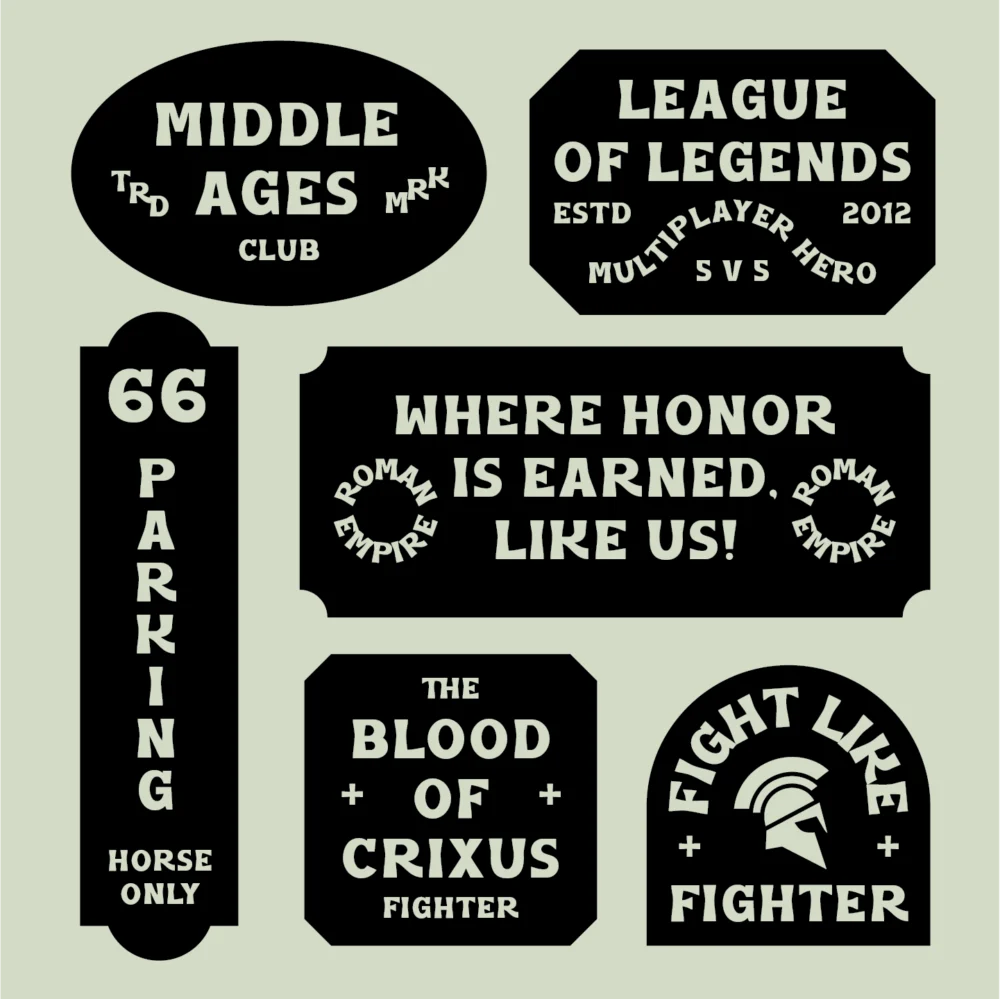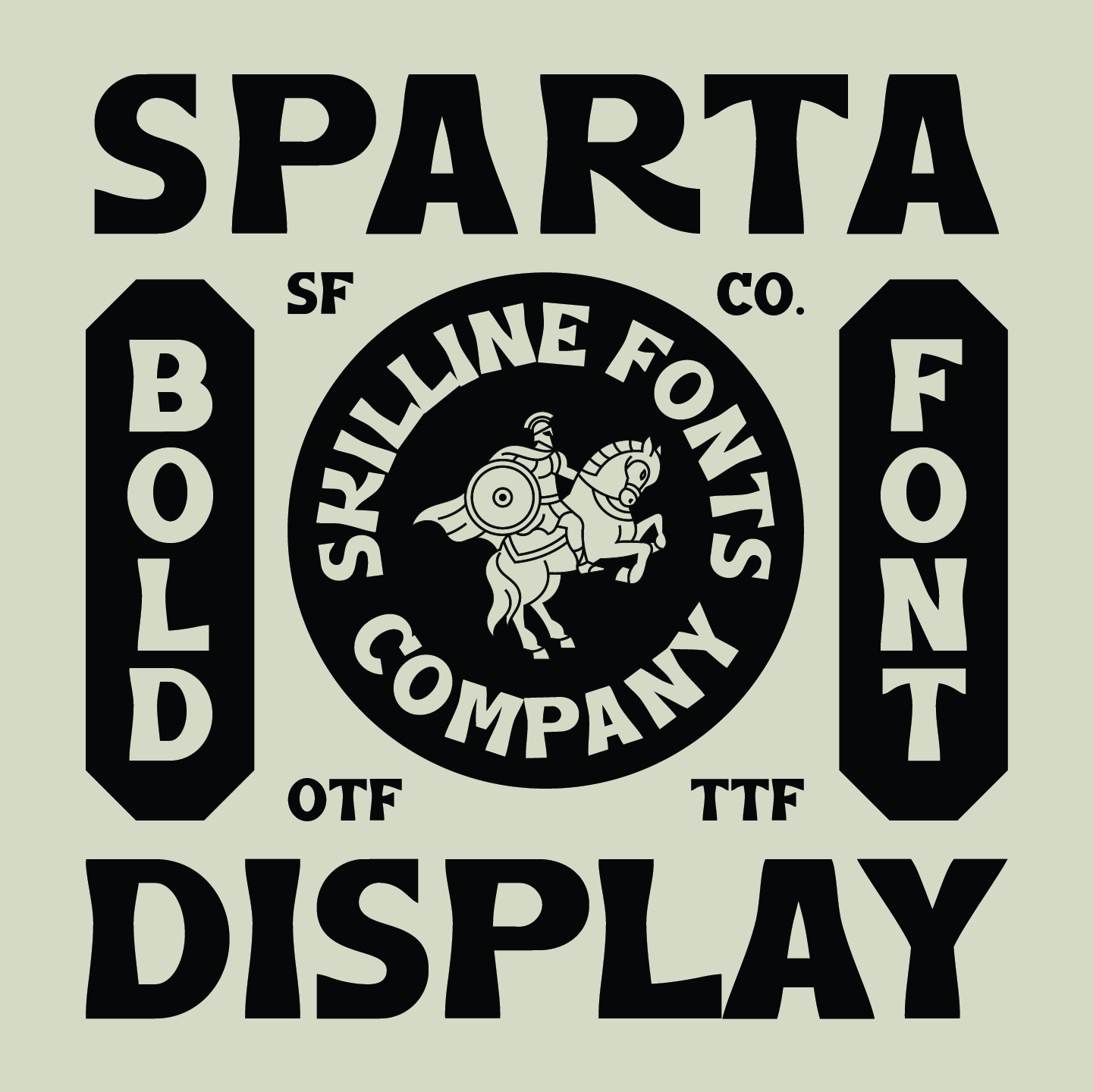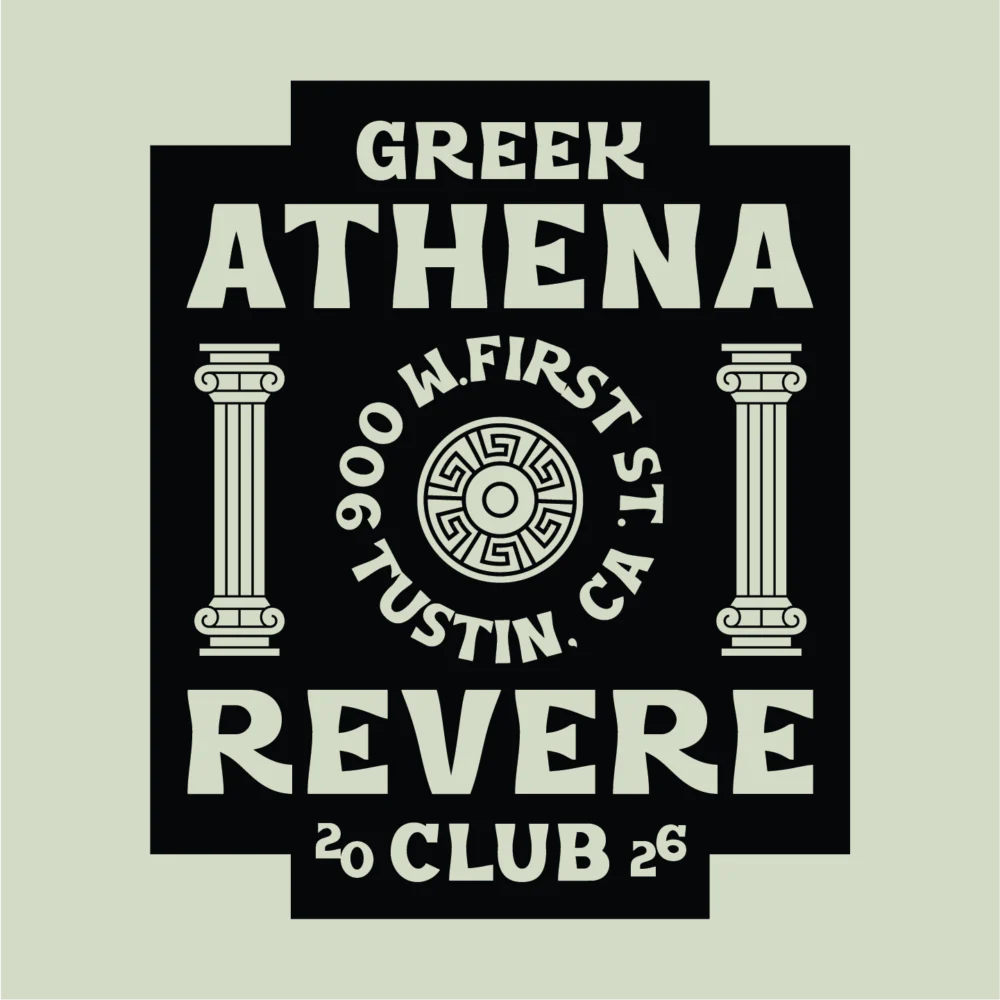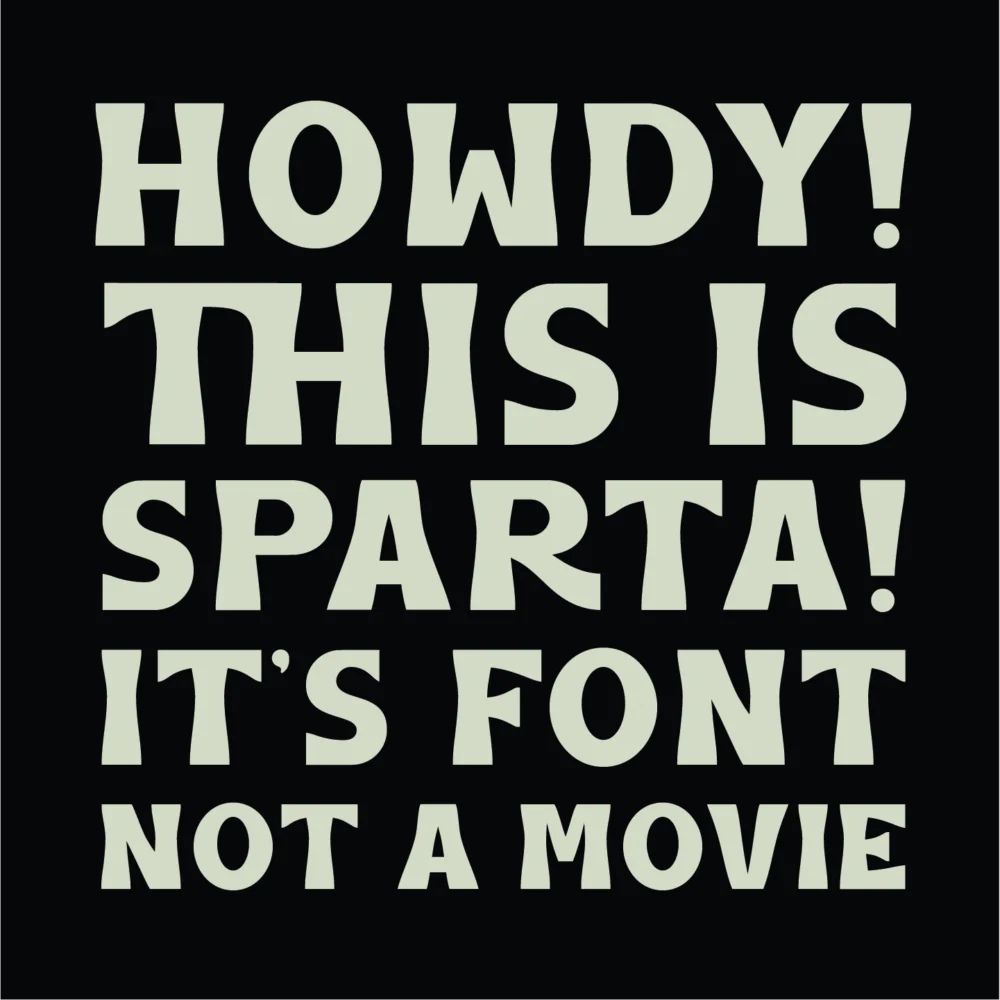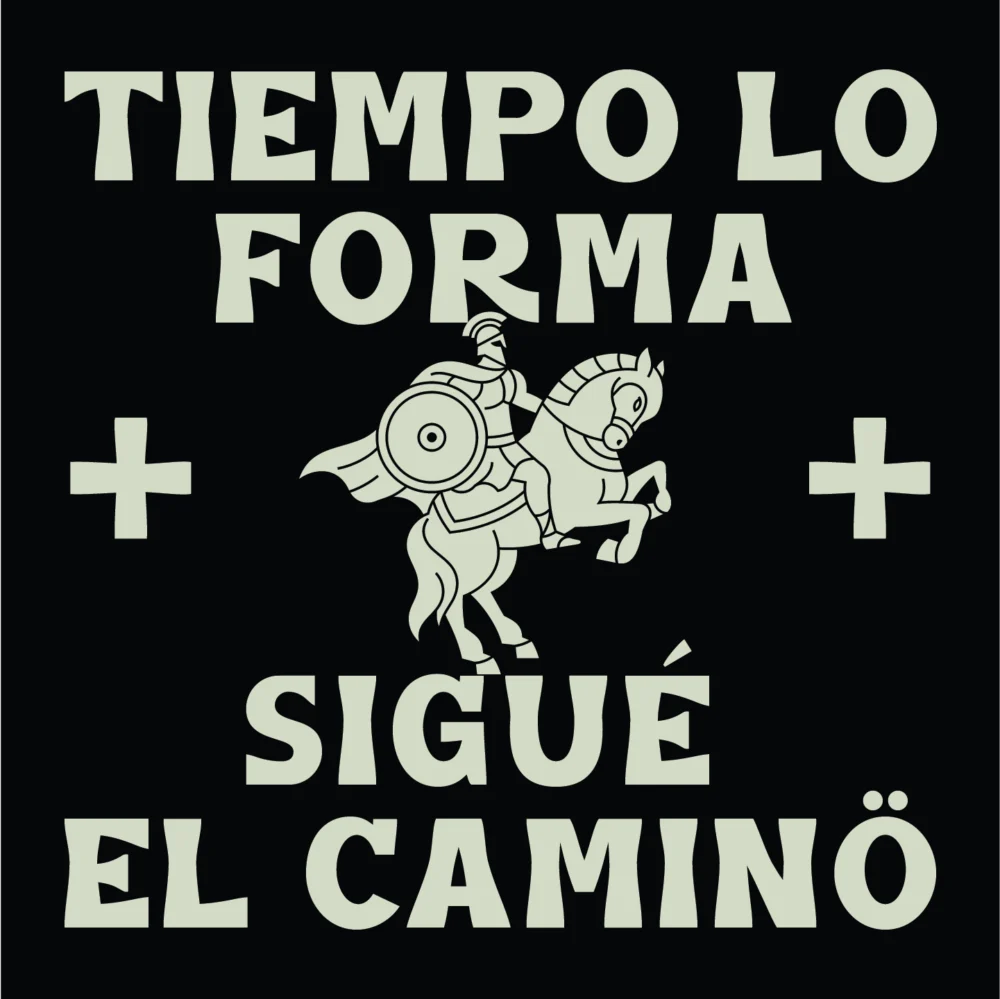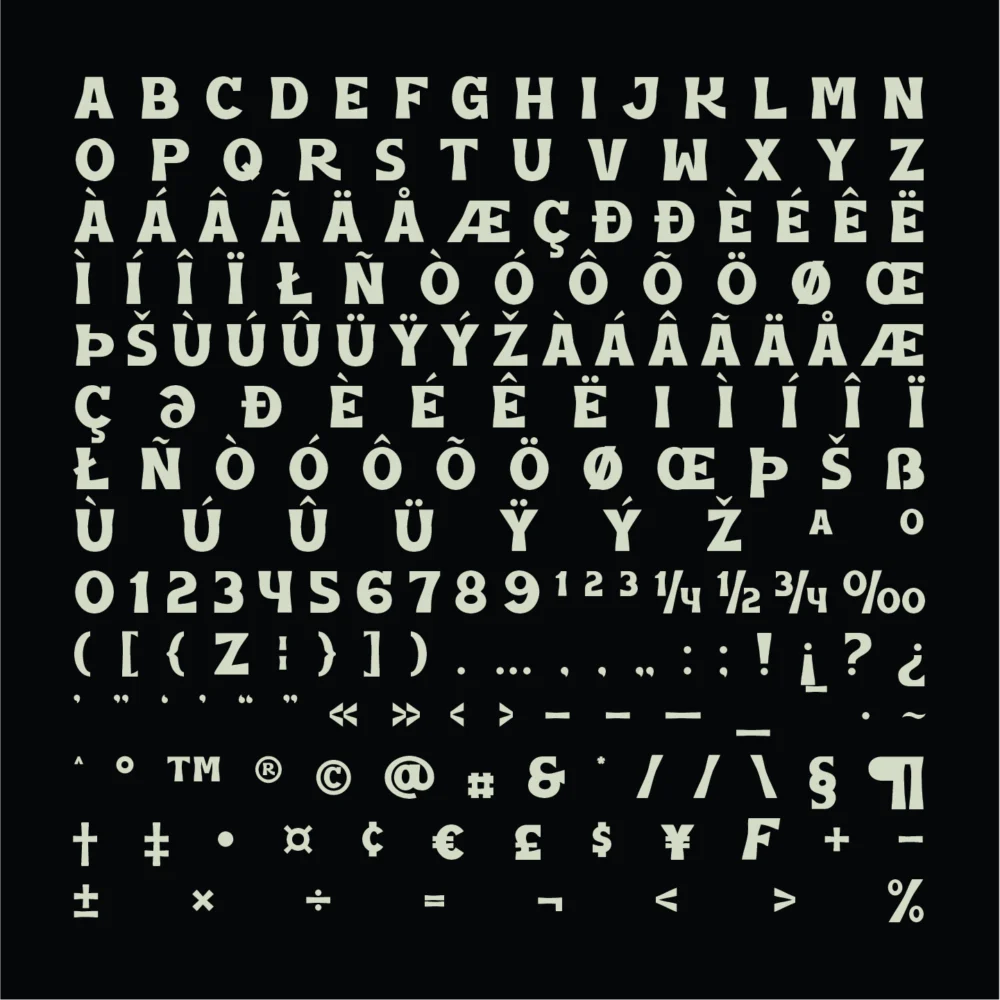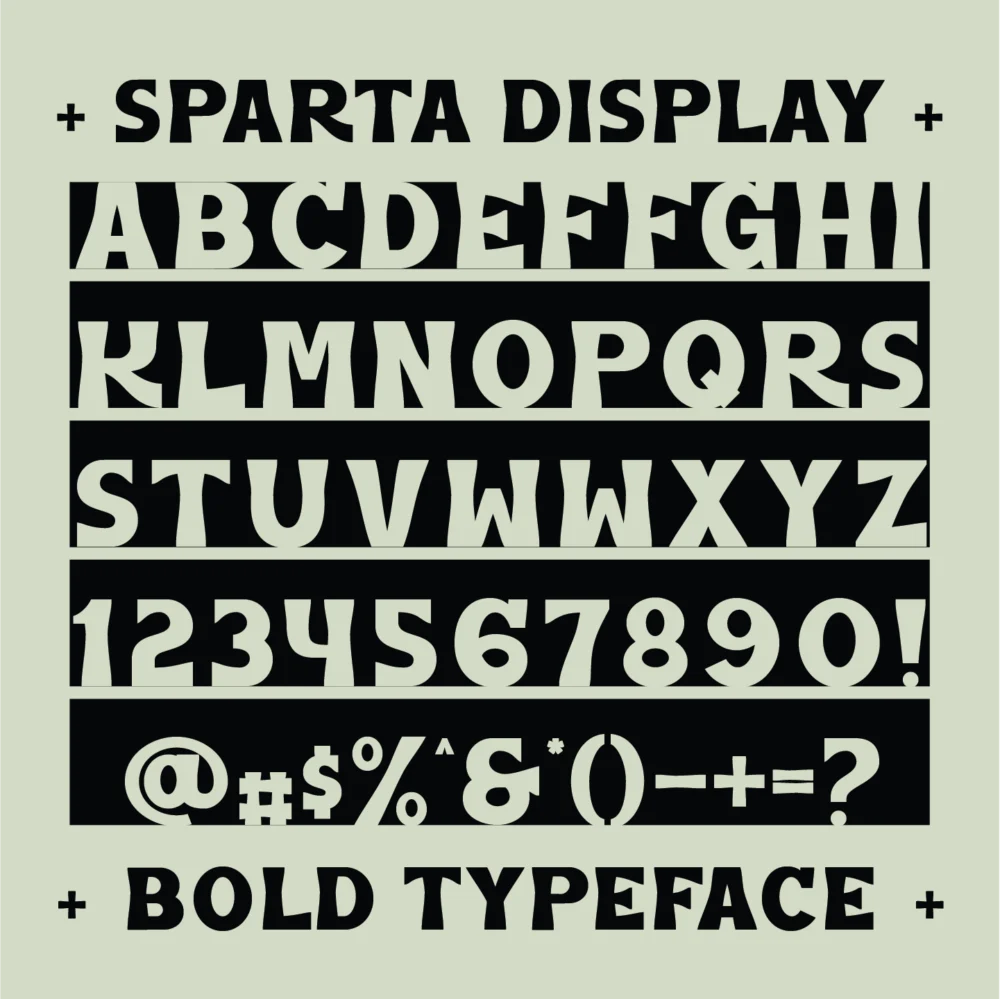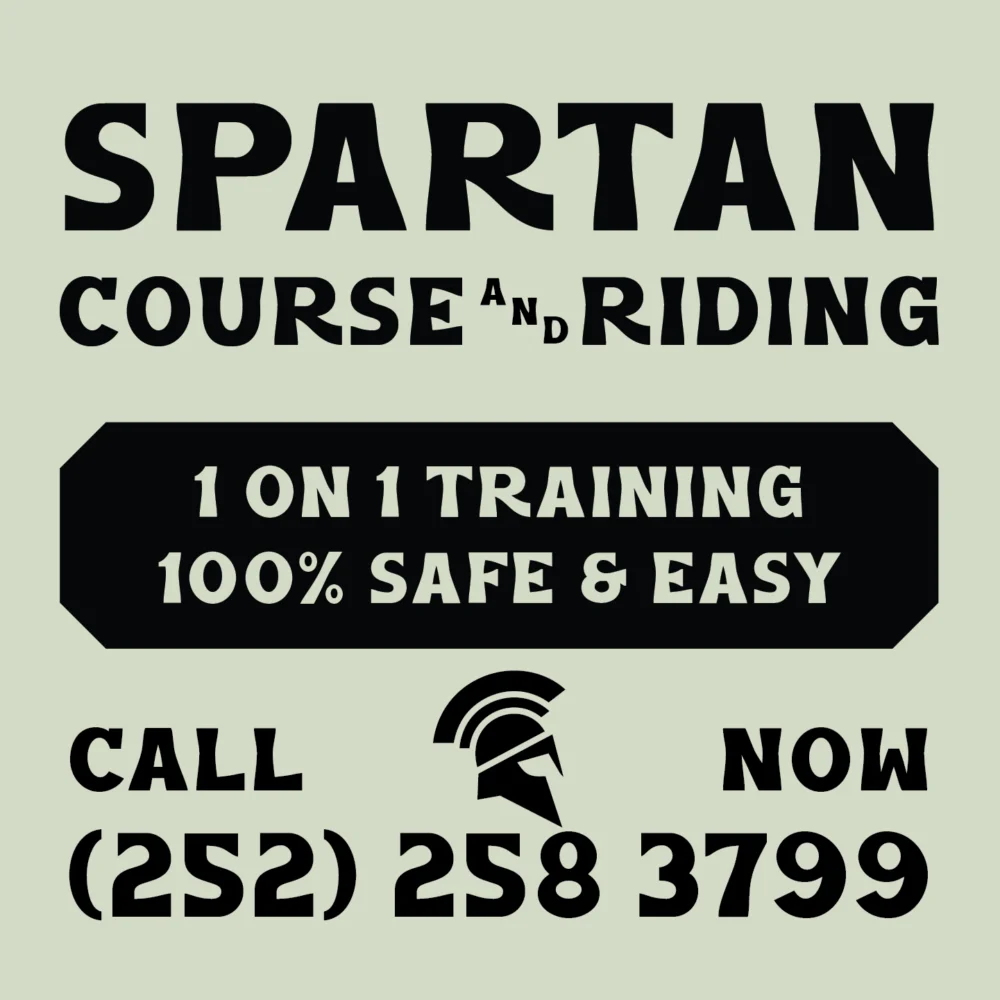
SFC Sparta
SFC Sparta is a bold vintage-inspired display typeface rooted in classic signage and retro display typography. Featuring strong curves, solid structures, and confident proportions, it delivers a powerful, masculine character with clean and modern readability. Built to command attention, SFC Sparta offers a timeless high-impact presence that works seamlessly across bold visual applications.
Ideal Applications for SFC Sparta Typeface
• Branding & visual identity
• Vintage & retro posters
• Logos & bold headlines
• Packaging & label design
• Apparel & merchandise
• Signage, badges & emblems
• Bold Display Typeface
• Vintage Signage-Inspired Letterforms
• Strong Curves & Solid Structure
• High Impact with Clean Readability